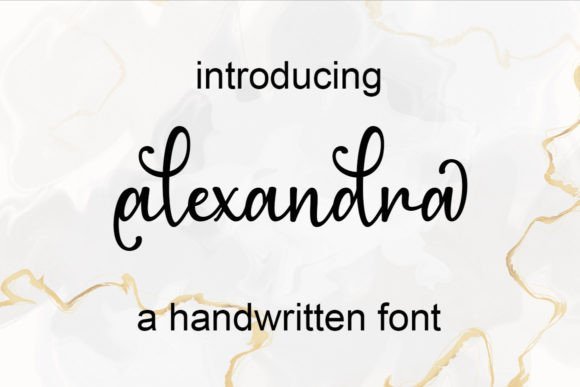
Discovering the Perfect Script: Alexandra Font As a designer, have you ever found yourself scrolling through countless fonts, searching for the perfect script to capture the essence of a special moment? Perhaps it’s a wedding invitation, a heartfelt birthday card, or a love letter to your partner. Whatever the occasion, you know that the right…